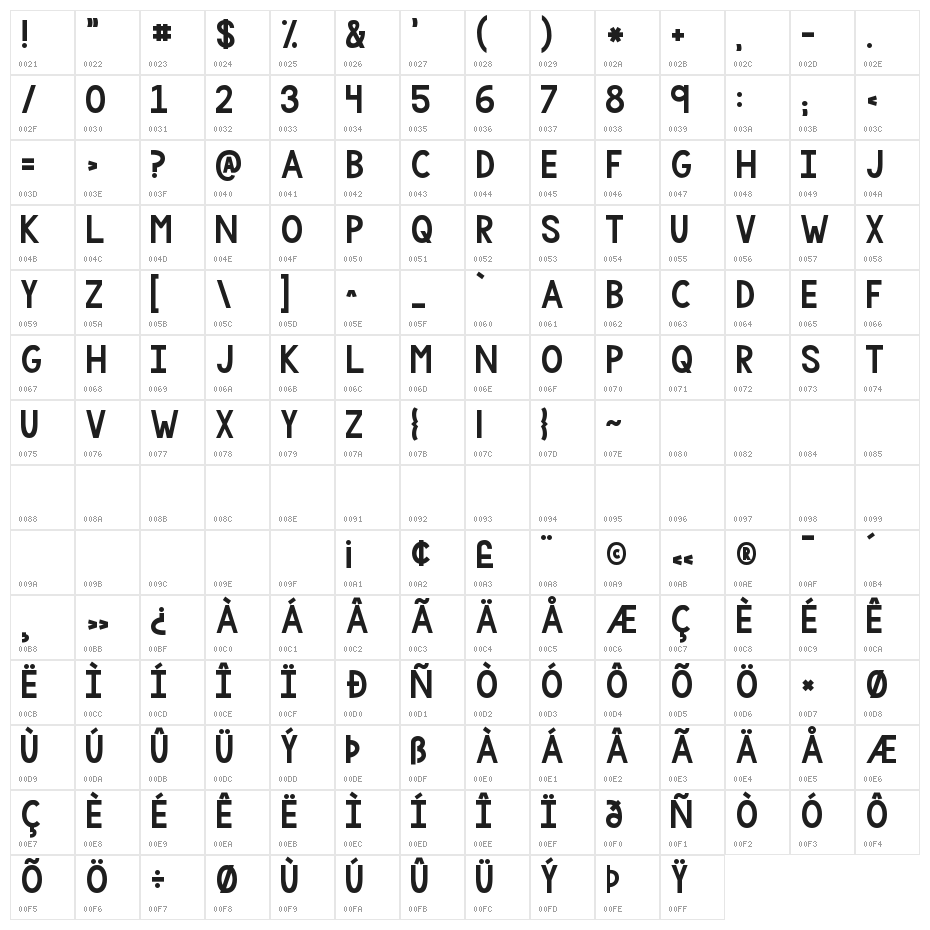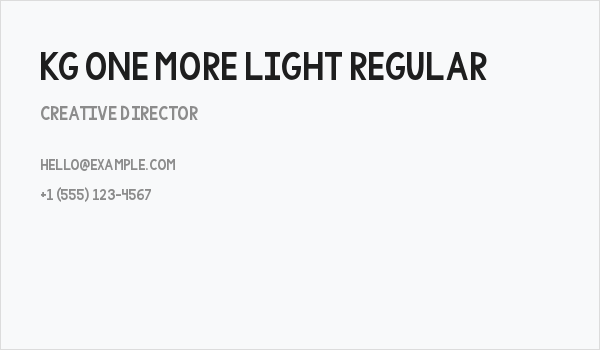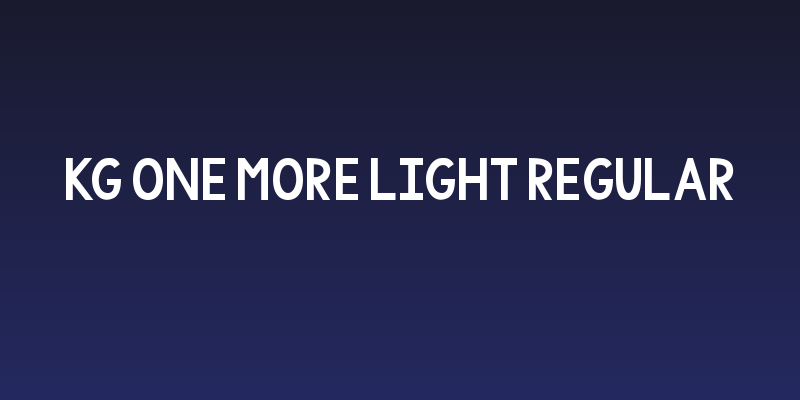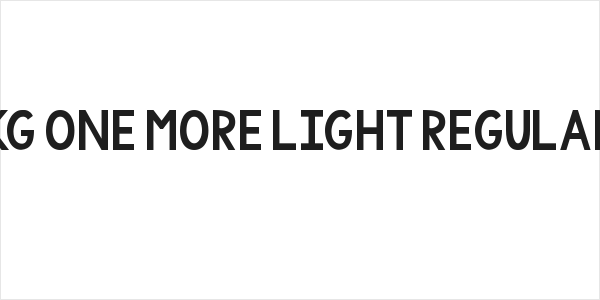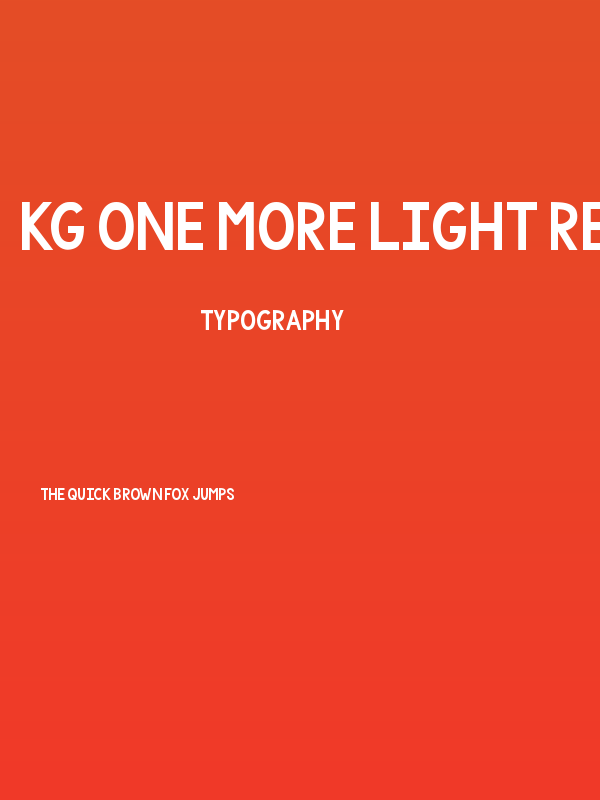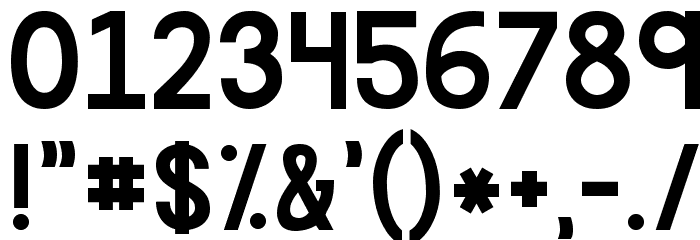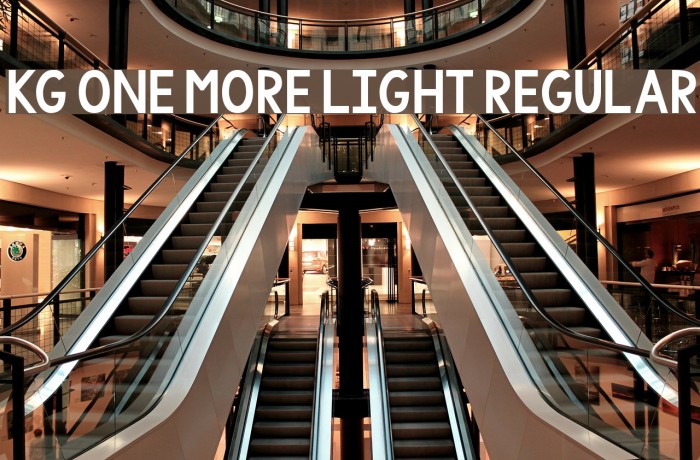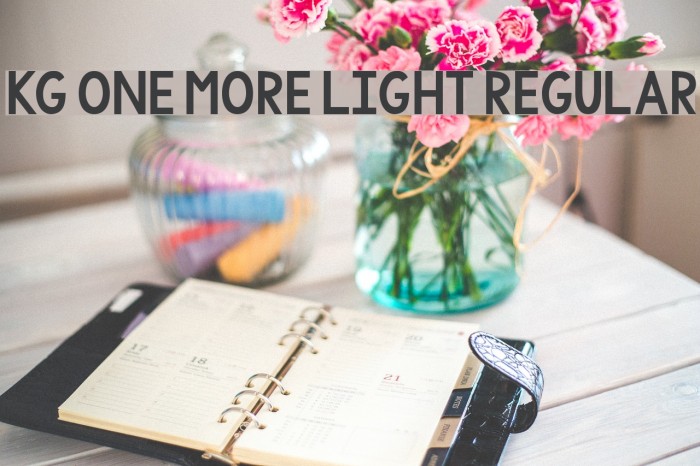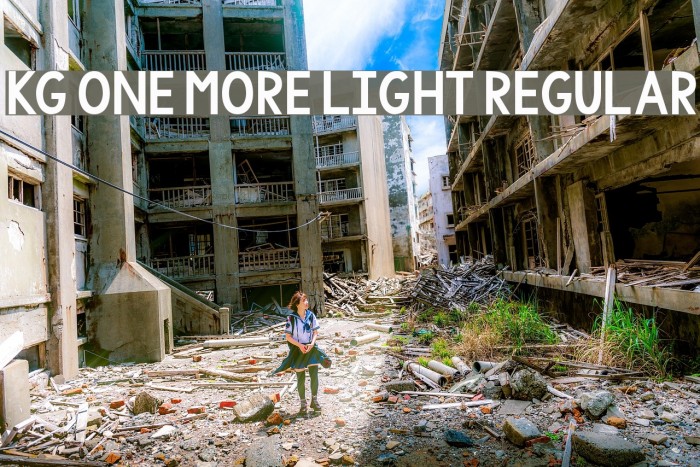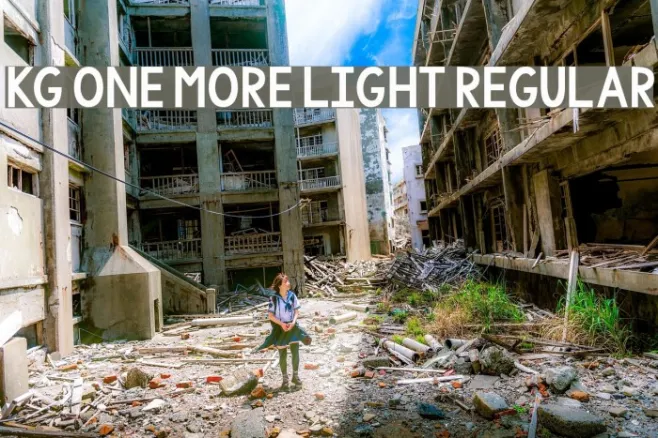
KG One More Light Regular Font
KG One More Light Regular Description
This font features a clean and modern sans-serif style with a straightforward design. The characters are bold and uniform, providing excellent readability. The uppercase and lowercase letters maintain a consistent height, while the numerals are clear and distinct. Special characters are well-defined, making this font versatile for various applications. The overall appearance is sleek and professional, suitable for both digital and print media.
| Proposed Projects | Ideal for branding, headlines, posters, and digital content where clarity and impact are essential. |